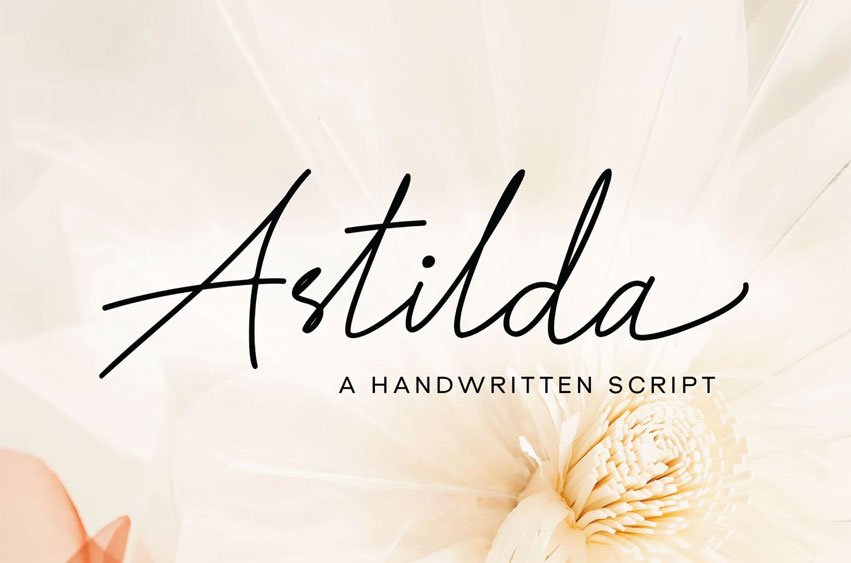
Astilda Font is a graceful signature script font featuring clean strokes and natural movement. Designed to capture the beauty of elegant handwriting, it’s ideal for branding, high-end fashion, minimalist editorial spreads, and modern lifestyle content. Its sophisticated form delivers a timeless look with effortless class and clarity.
This font stands out in both digital and print formats, offering a chic touch for social media, wedding invites, boutique packaging, and personal logos. With extensive ligatures and alternates, Astilda provides dynamic typographic flexibility, enabling a more personal and authentic handwriting effect in your designs.
Whether you’re designing magazine layouts, stylish lookbooks, or quote graphics, Astilda delivers refined beauty in every letter. Compatible with multiple languages and supported by stylistic alternates, it ensures seamless integration into global design projects. Add quiet luxury and handwritten warmth to your visual identity with Astilda.
- Standart ligatures
- Swash